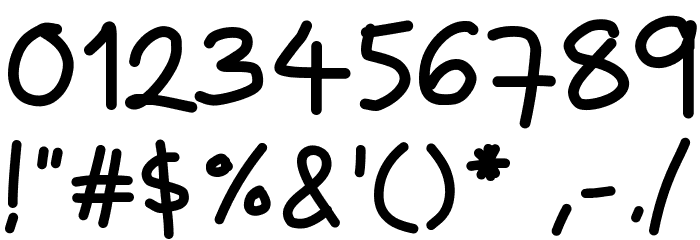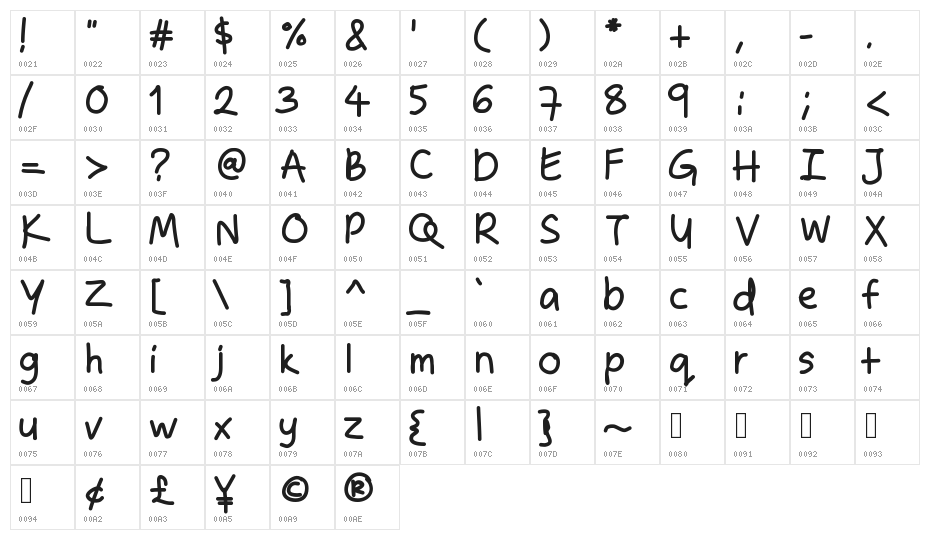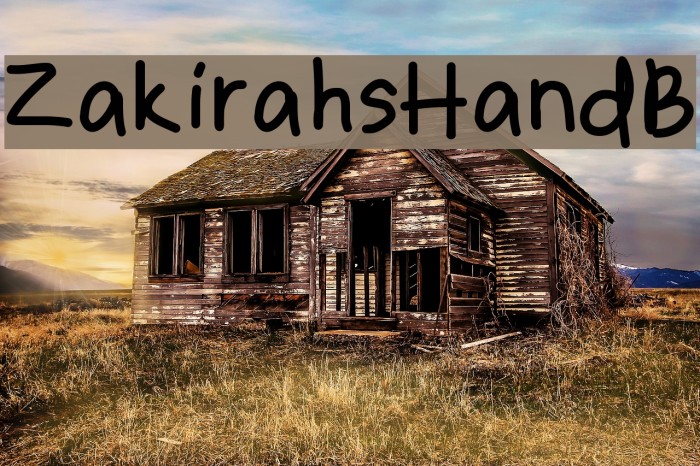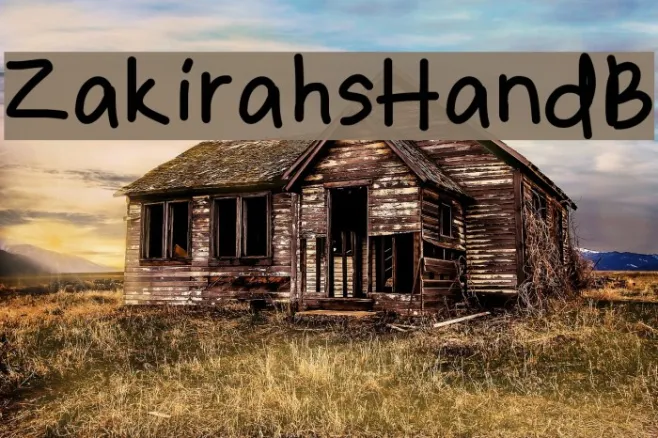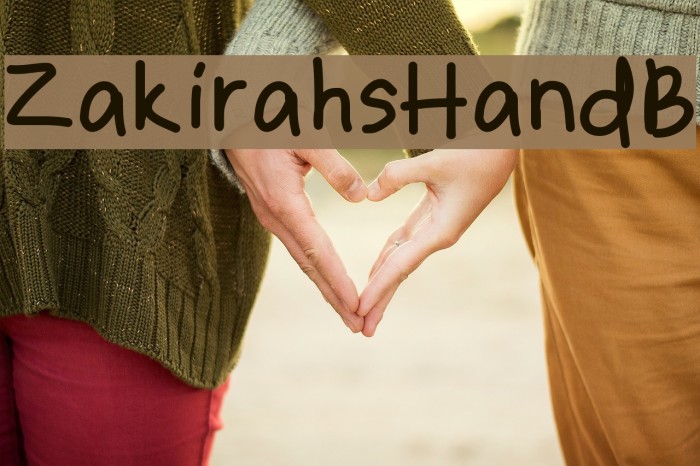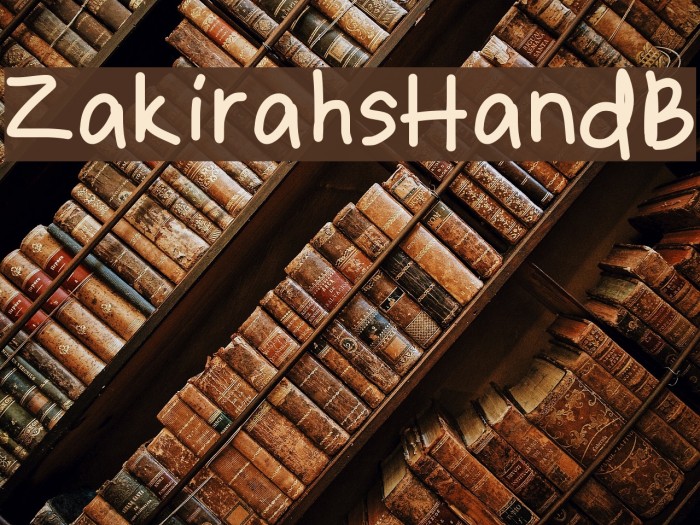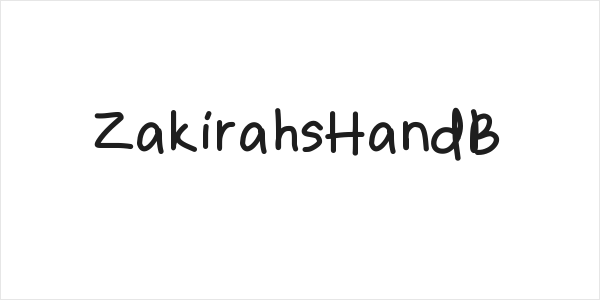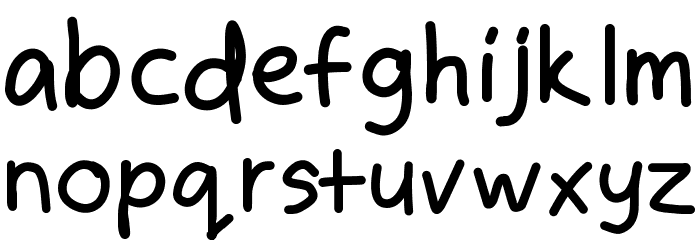
ZakirahsHandB Font
ZakirahsHandB Description
This font features a playful and casual handwritten style, characterized by its smooth and rounded letterforms. The uppercase and lowercase letters maintain a consistent flow, giving it a friendly and approachable appearance. The numbers and special characters are designed to complement the overall style, ensuring readability and coherence. The strokes are moderately thick, providing a balanced weight that enhances its legibility. This font is ideal for projects that require a personal touch, such as greeting cards, invitations, and informal branding.
| Use Case | Headlines, Informal text, Branding |
| Proposed Projects | Ideal for greeting cards, invitations, children's books, and informal branding. |